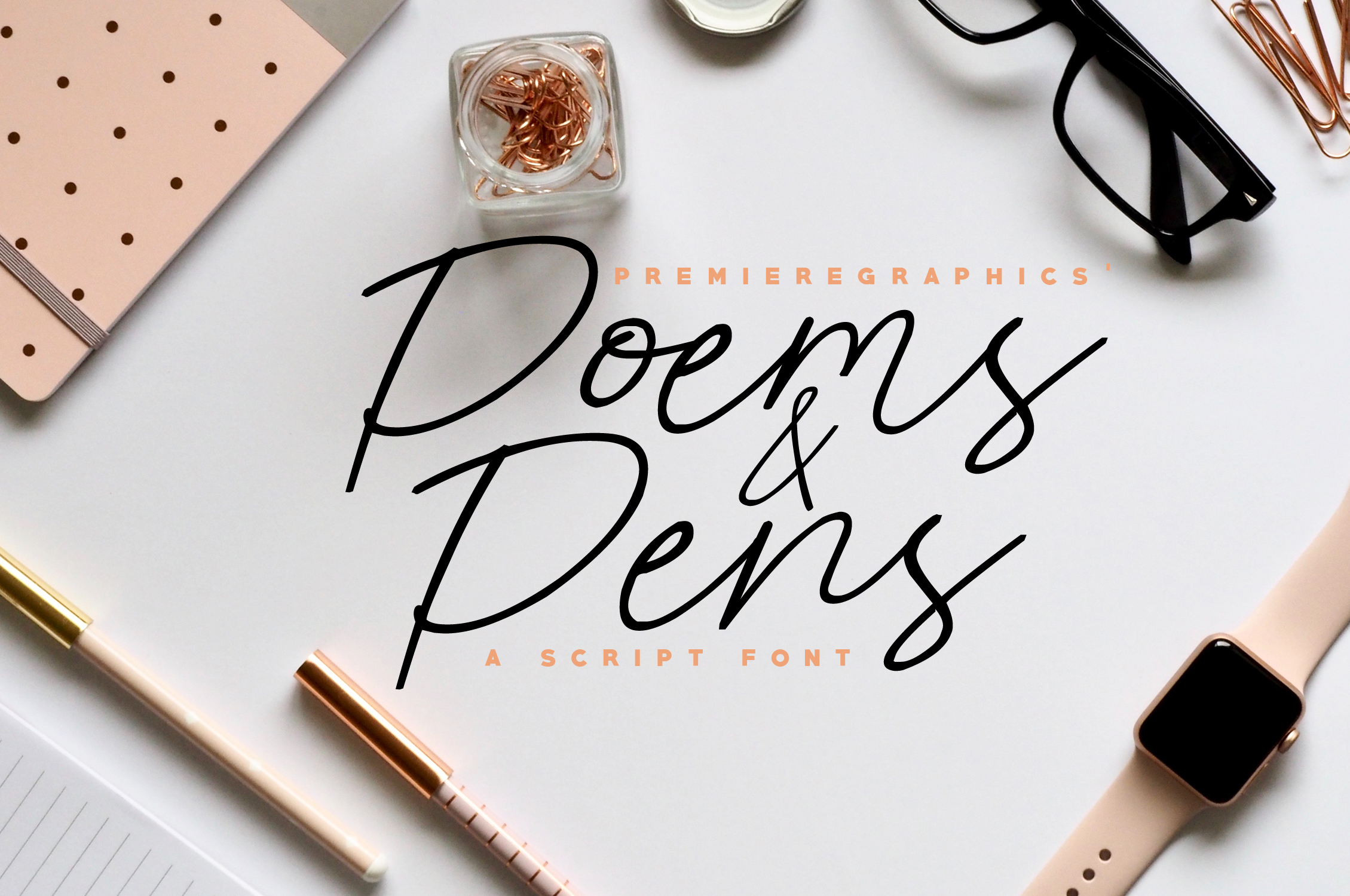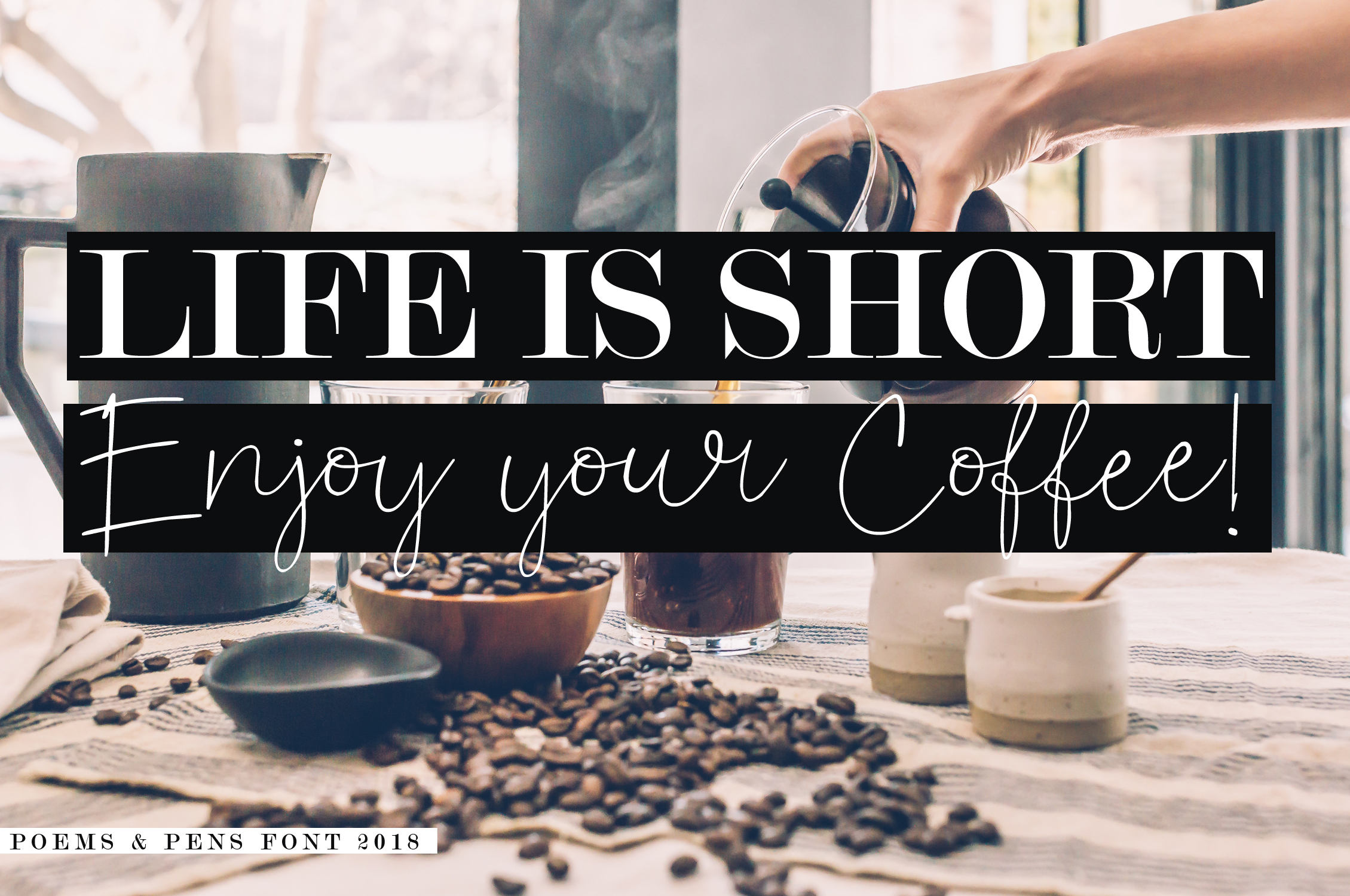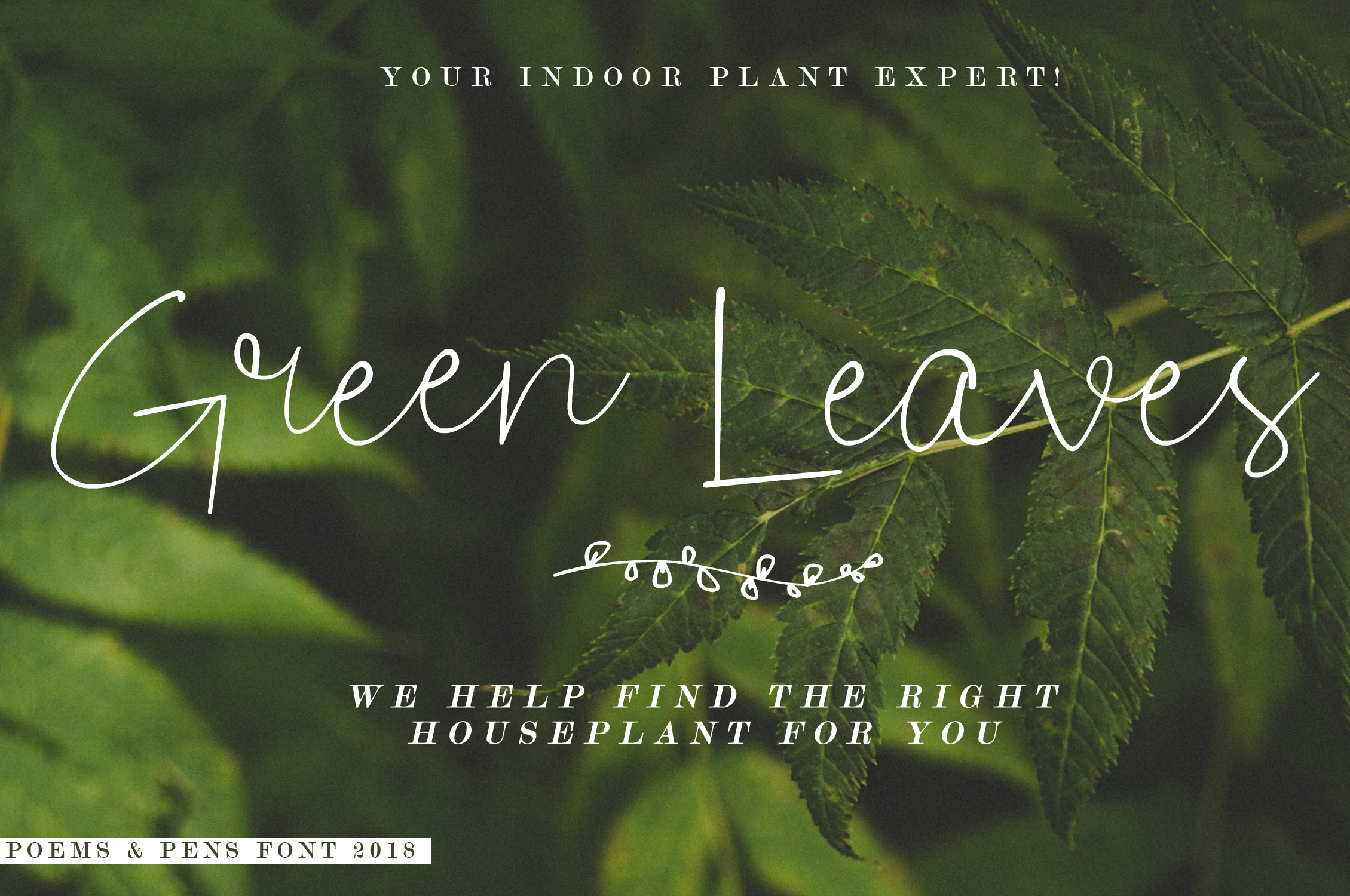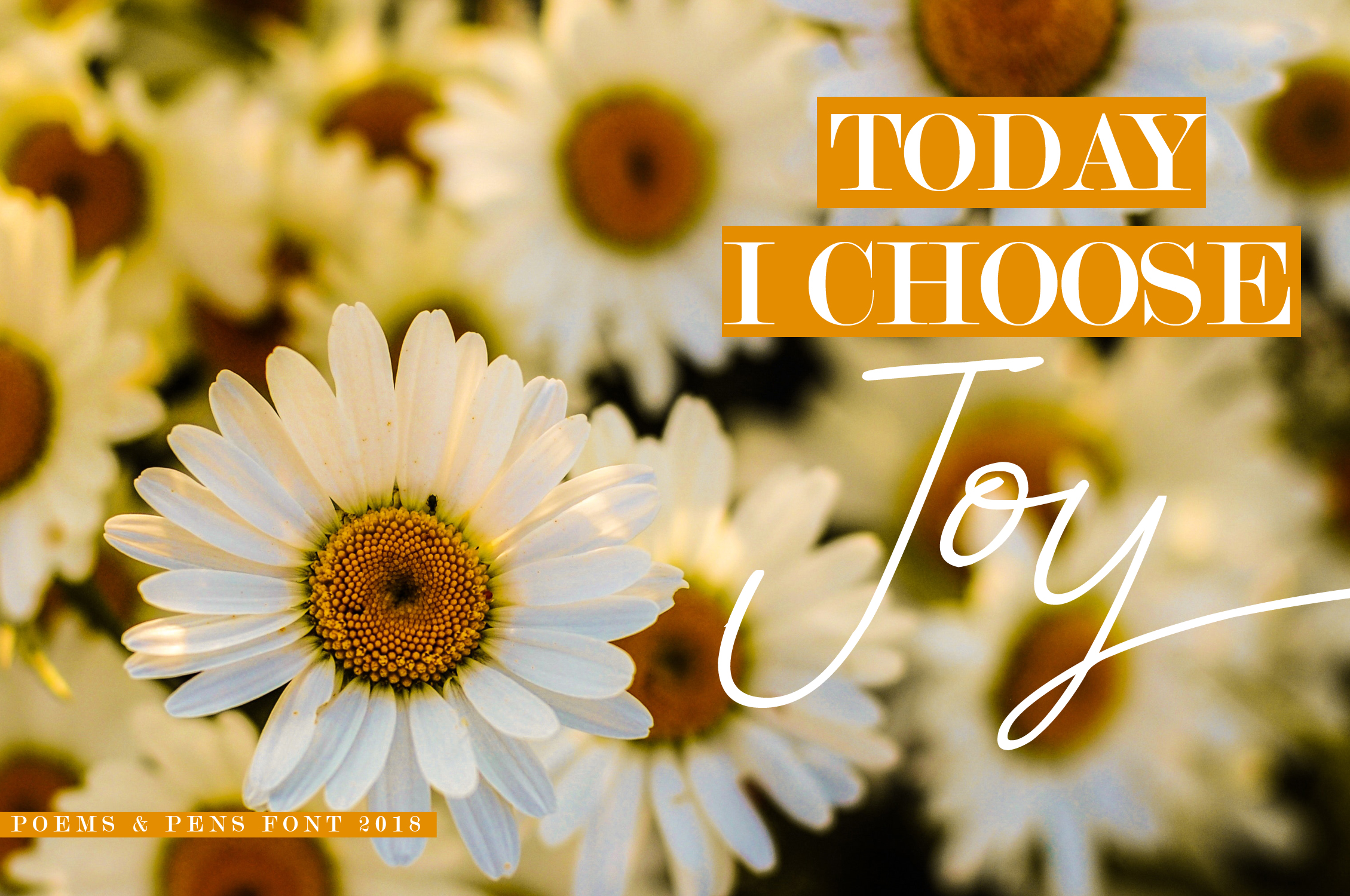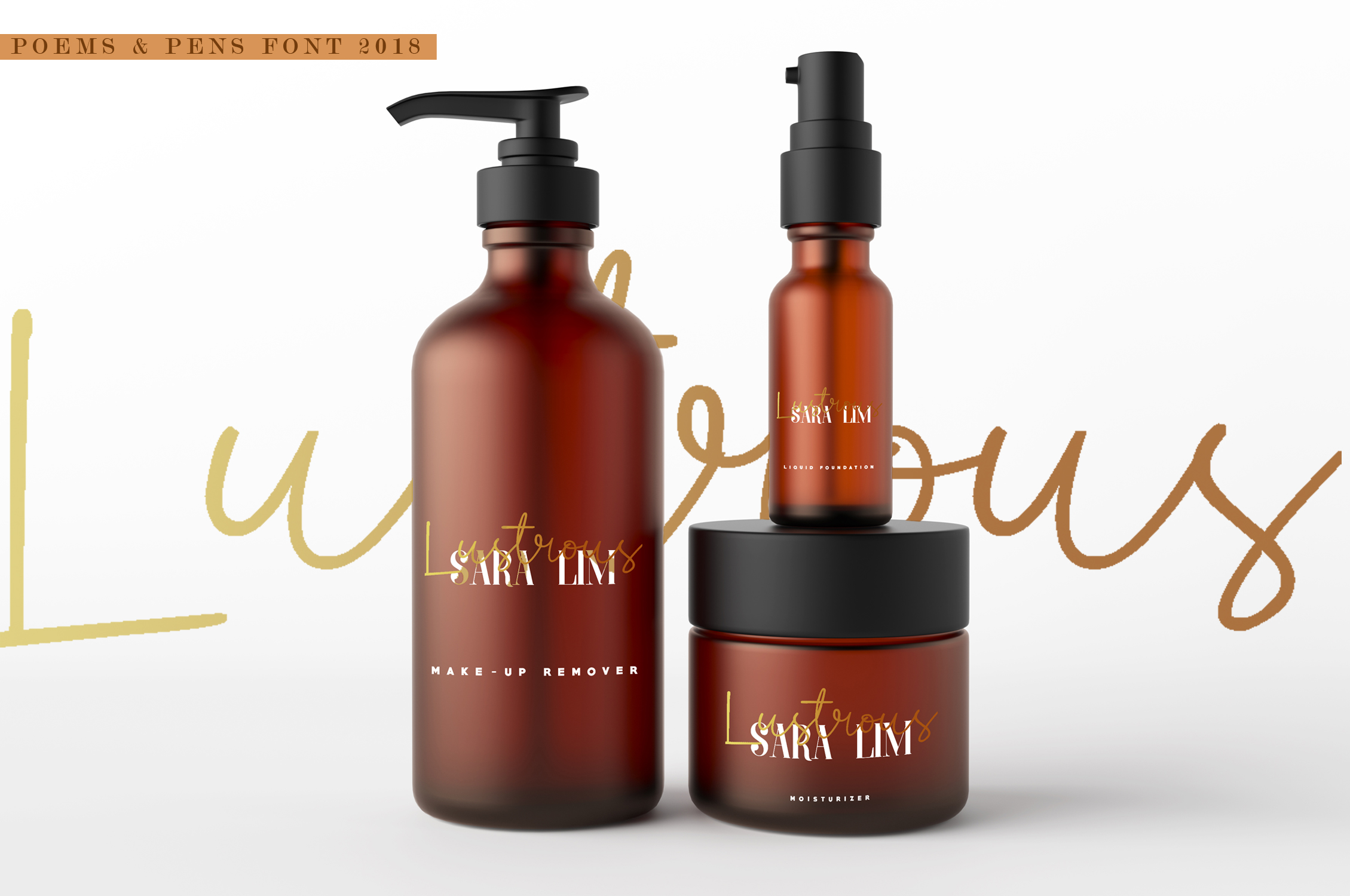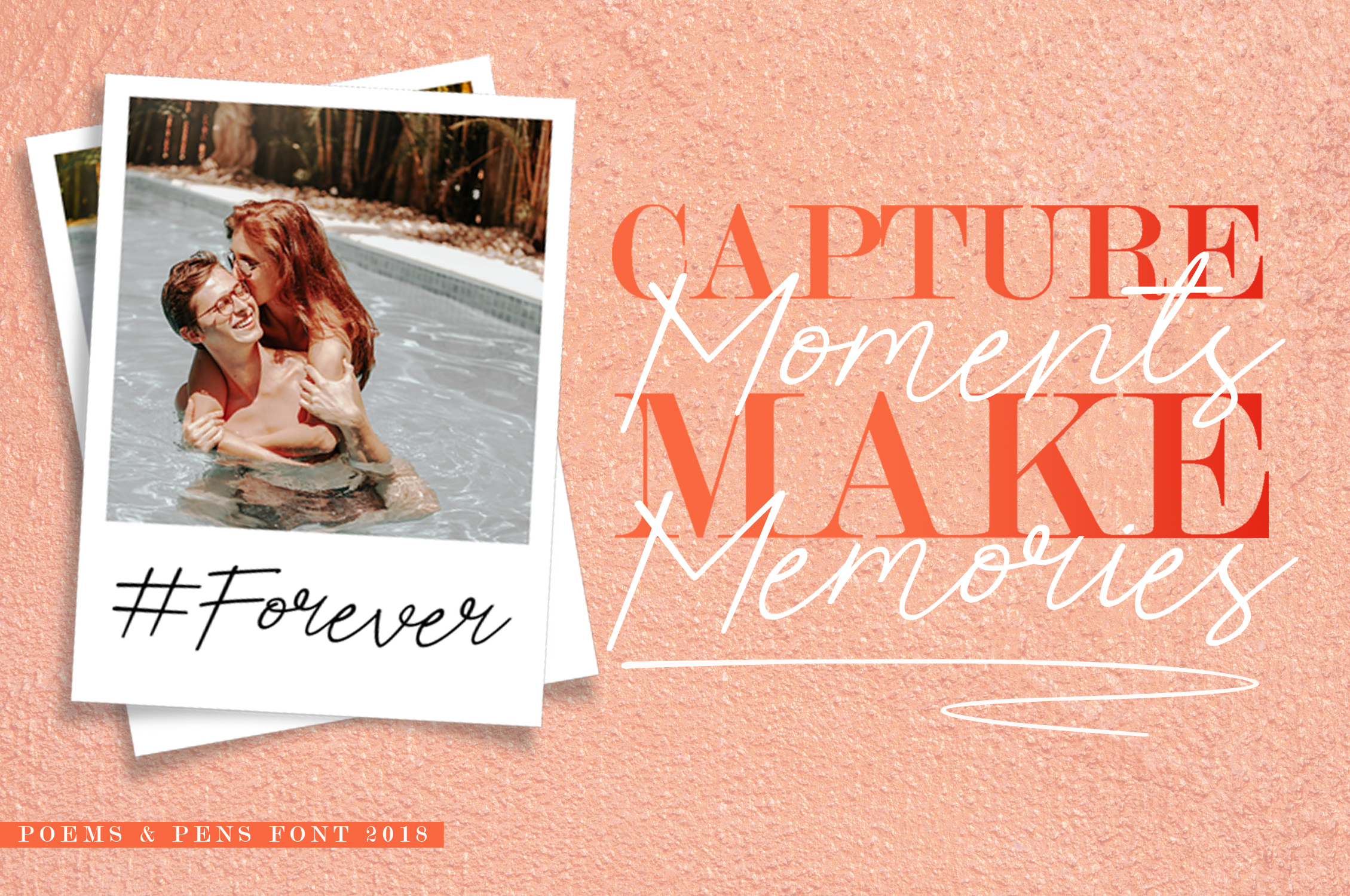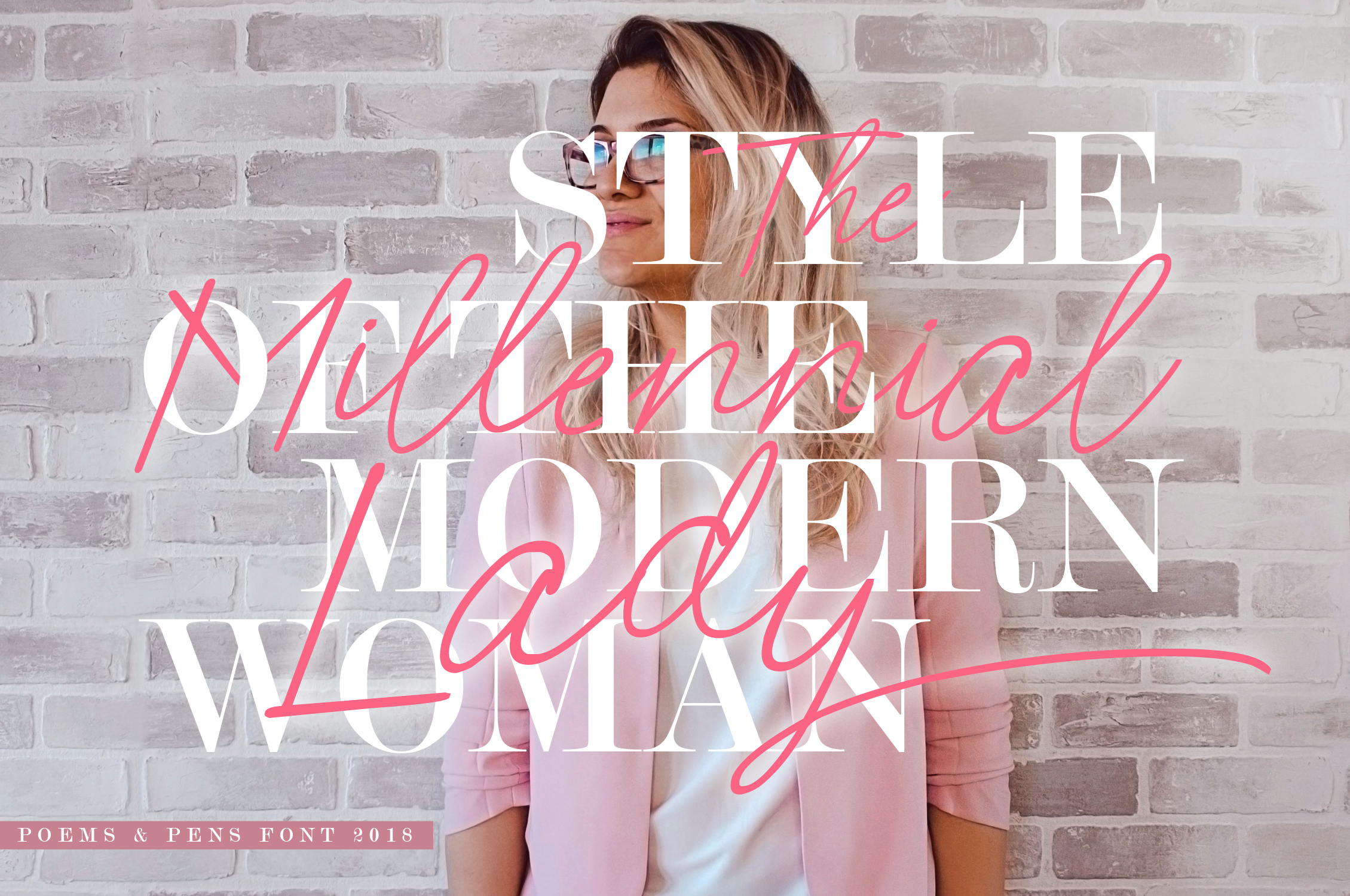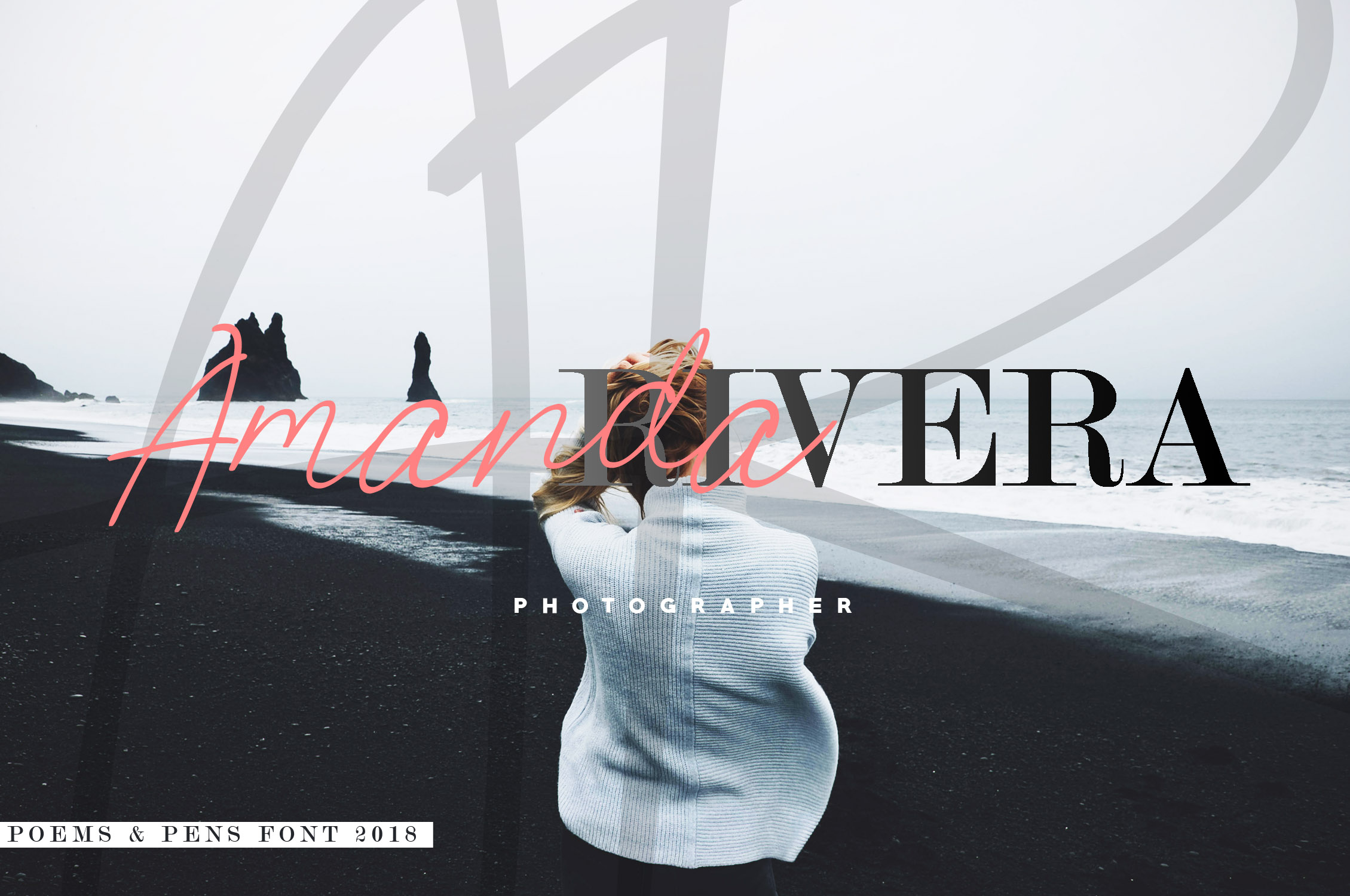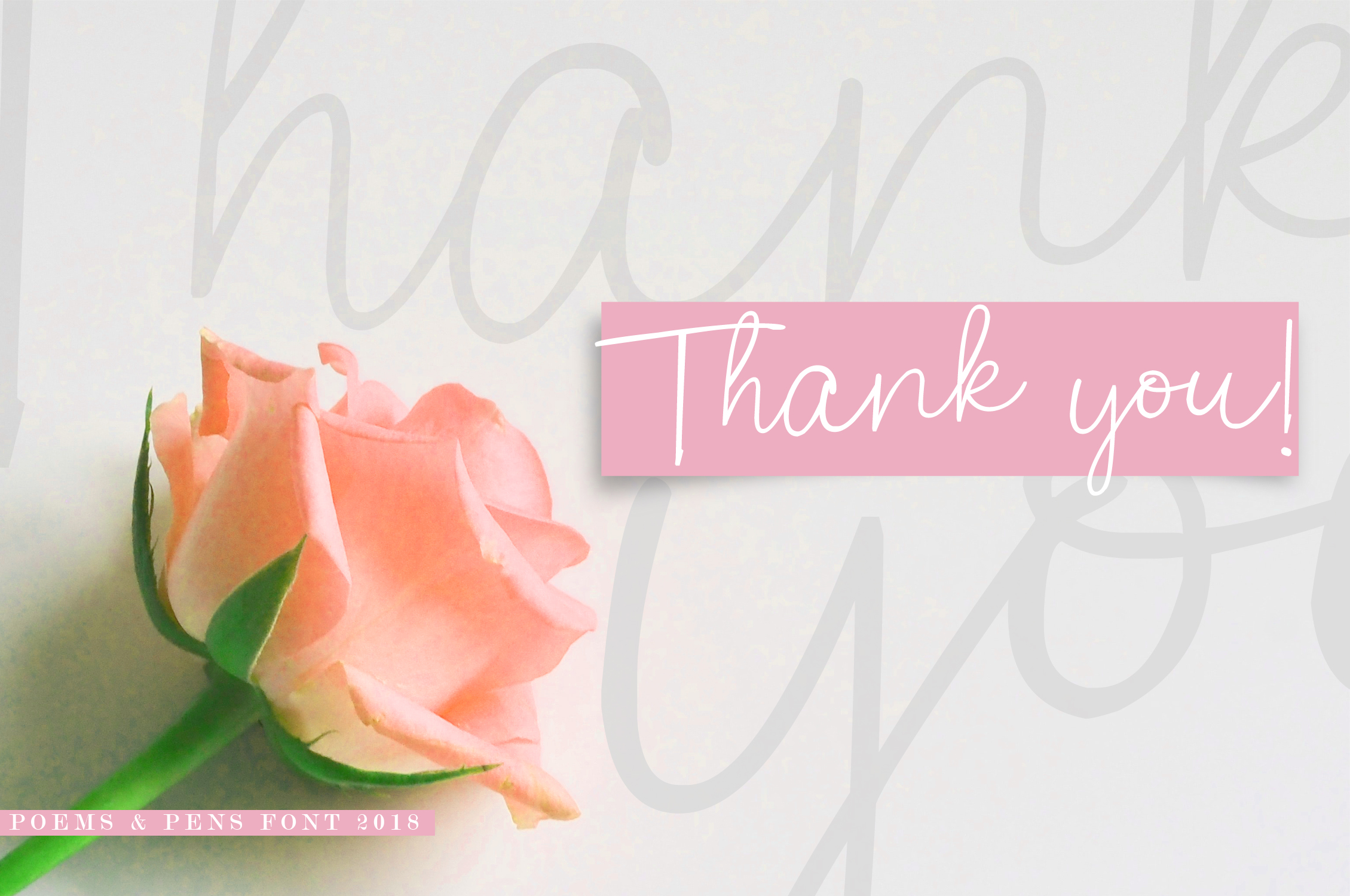
Poems & Pens Font
About Poems & Pens Font
Poems and pens a day, keep the boredom away! Introducing the freshest and latest cursive font, Poems & Pens! This is a jam-packed cursive font that is made to be a pretty complement for your next project. Poems & Pens font is perfect for photography, branding, and your blog. This font gives the hand-lettering style a new face. With its realistic pen texture and jumping-letter appearance, this font will beautify your project even more!
Poems & Pens font includes extra characters and clip-arts. Also included in the file is an alternate end-letter for each character.